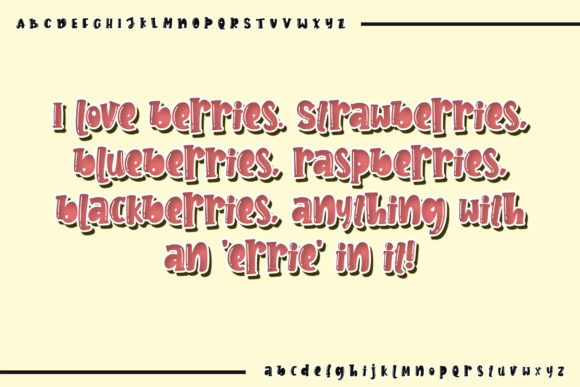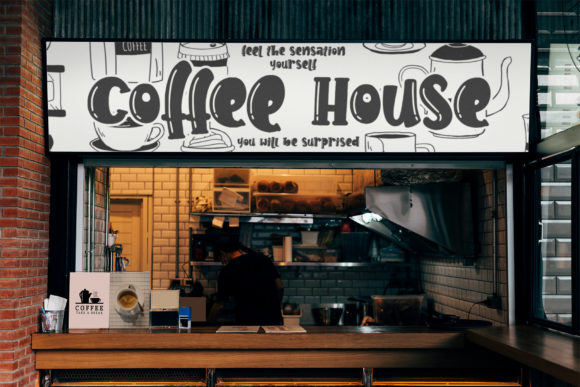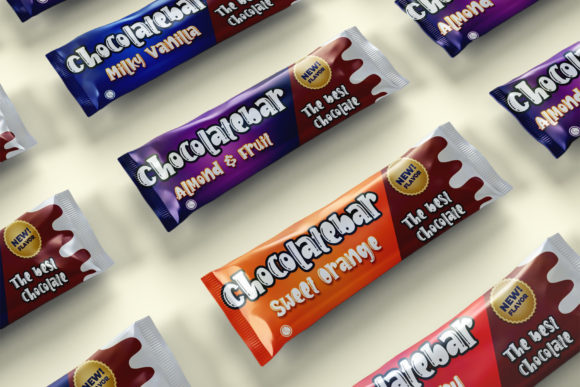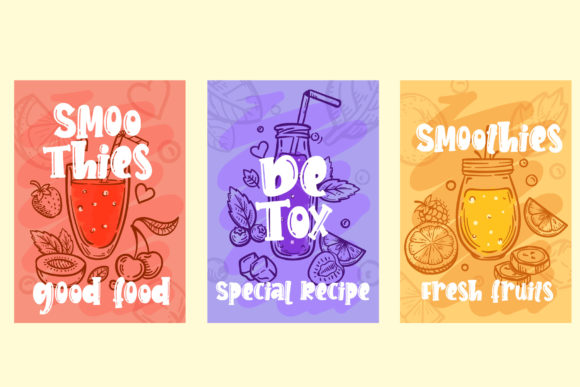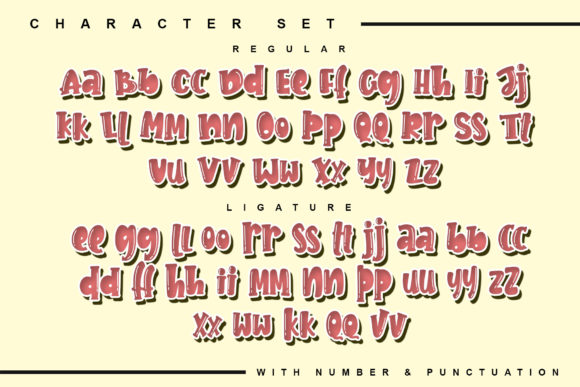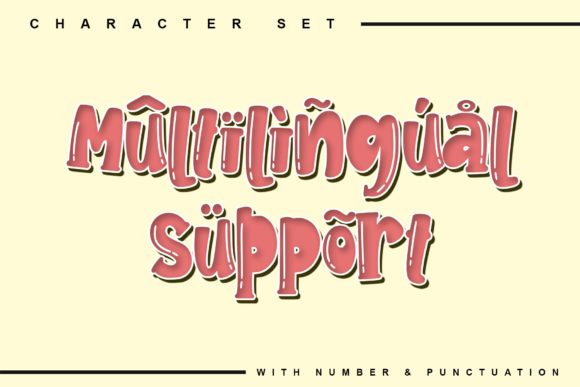
Discover the Sweet Charm of Berries Font
Remember the moment when you stumbled upon the perfect font for your design project? It’s that feeling of excitement and relief when everything comes together. For designers, finding the right font can make all the difference between a good design and a great one. And that’s exactly what you’ll find with the adorable Berries Font.
This cute and sweet serif font has an incredibly friendly feel, making it perfect for creating joyful and attractive projects. Whether you’re designing a children’s book, a wedding invitation, or a social media campaign, Berries Font is sure to bring a smile to your audience’s face. Its playful touch makes it a valuable addition to any designer’s toolkit, and with its versatility, the possibilities are endless.
Berries Font Key Features
- Character Count: 750+ glyphs, including Latin, Cyrillic, Greek, and extended characters
- Font Size: Available in 5 different font sizes, ranging from 8 to 72 points
- Resolution: Optimized for high-resolution displays, suitable for print and digital use
- Unique Characteristics: Hand-drawn, organic design with a natural, whimsical feel
- Font Style: Comes in 3 different styles: Regular, Italic, and Bold, with additional variations available
Review of Berries Font
Overall, I was pretty excited to dive into Berries Font and see what it had to offer. Here’s my honest take:
- Hand-drawn feel: The font has a lovely, hand-drawn quality that gives it a unique and whimsical touch.
- Variety of weights: The font comes in a range of weights, from light to bold, which makes it easy to use in different contexts.
- Playful feel: The font’s irregularities and quirks make it perfect for creative projects where you want to add some visual interest.
- Readability issues: At smaller sizes, the font can be a bit tricky to read due to its irregular shapes and lack of clear letterforms.
- Limited language support: Berries Font may not be the best choice for languages that require a lot of diacritical marks or complex typography.
Overall, I think Berries Font is a great choice for creative projects where you want to add a touch of personality and whimsy. Just be mindful of its limitations and use it in contexts where its unique qualities will shine through.
The “Berries Font” is perfect for creating eye-catching headlines, titles, and logos. It’s also great for adding a touch of whimsy and playfulness to your designs. Some common use cases include:
– Social media posts and ads
– Children’s books and educational materials
– Gift tags and wrapping paper
Alternatives to Berries Font
Pacifico is a beautiful, elegant script font that is perfect for creating a sophisticated and luxurious feel. It is ideal for use in branding, packaging, and other design elements where a touch of sophistication is needed. Pacifico is a great alternative to Berries Font as it has a similar elegant feel, but with a more refined and polished look.
Great Vibes is a modern, elegant script font that is perfect for creating a sense of excitement and energy. It is ideal for use in branding, advertising, and other design elements where a sense of dynamism is needed. Great Vibes is a great alternative to Berries Font as it has a similar modern feel, but with a more energetic and lively vibe.
Alex Brush is a beautiful, handwritten font that is perfect for creating a personal and intimate feel. It is ideal for use in branding, packaging, and other design elements where a touch of warmth and personality is needed. Alex Brush is a great alternative to Berries Font as it has a similar handwritten feel, but with a more rustic and earthy look.
Ostrich Sans is a modern, sans-serif font that is perfect for creating a clean and minimalist feel. It is ideal for use in branding, advertising, and other design elements where a sense of simplicity is needed. Ostrich Sans is a great alternative to Berries Font as it has a similar clean feel, but with a more modern and sleek look.